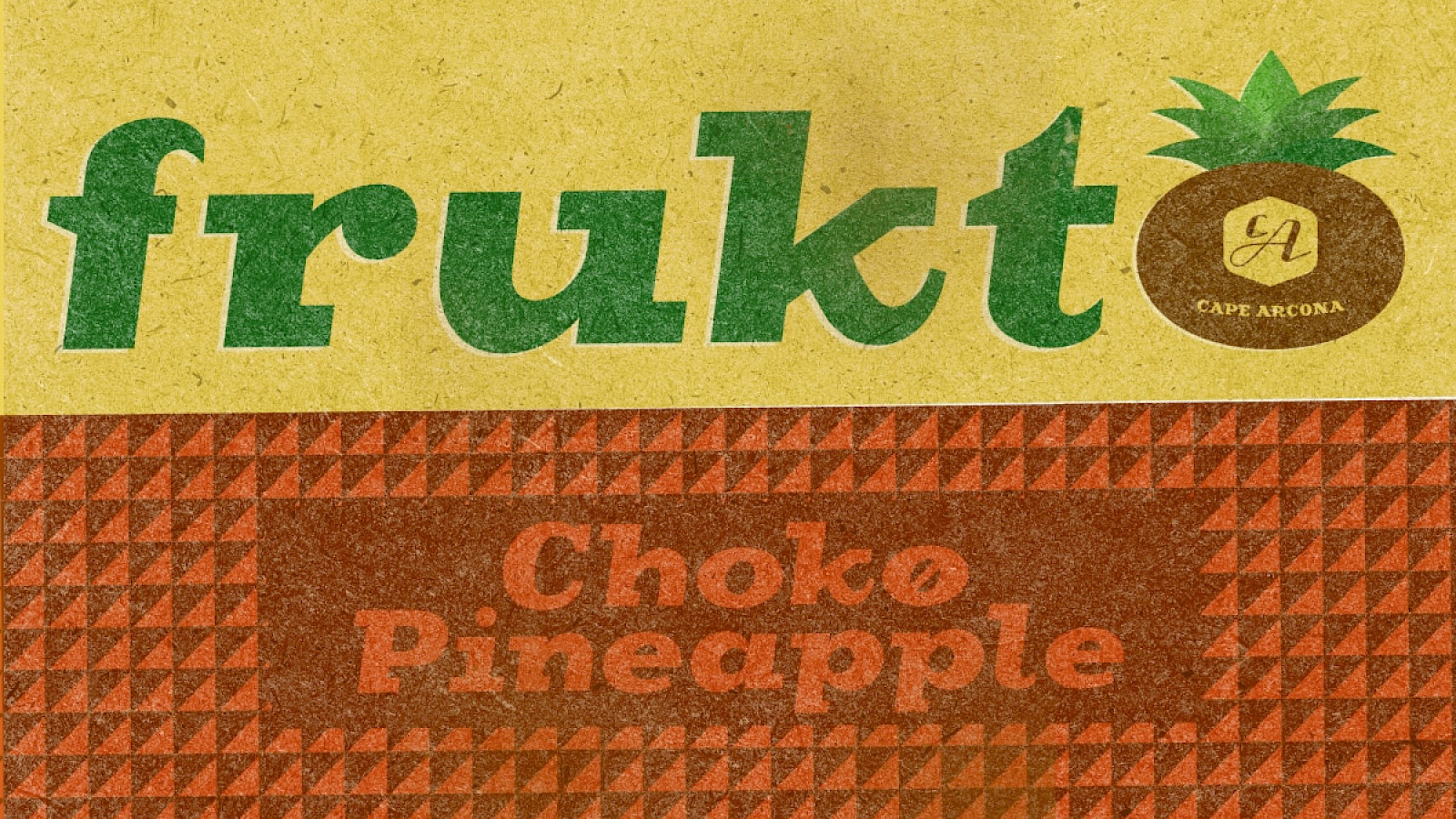
CA Cape Rock
CA Cape Rock is a high-impact display font designed to command attention. Drawing inspiration from the heavy, timeless structures of fat Clarendons, its bold silhouettes bring a gritty, spirited personality to any project demanding a powerhouse aesthetic.
Beyond its striking profile, the font is engineered for creative flexibility:
• Customization: Packed with numerous ligatures and unique terminal characters.
• Modern Integration: Fully functional OpenType features allow for automatic or manual stylistic shifts.
Whether you're looking to “spice up” a headline or anchor a brand identity, CA Cape Rock delivers a perfect blend of vintage muscle and contemporary flair.
OpenType Features:
Stylistic alternates (salt)
Discretionary ligatures (dlig)
Contextual alternates (calt)
Swashes (swsh)
Stylistic sets (ss0x)